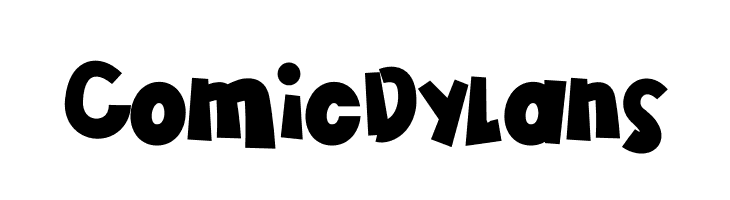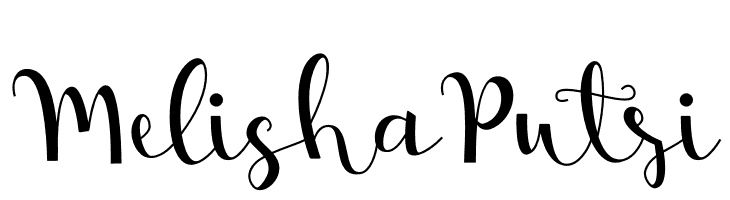
A dynamic and energetic script font with fluid, cursive letterforms.
An elegant serif font with an italic slant and moderate contrast.
A bold, angular font with a semi-italic slant and a modern, dynamic style.
A bold, decorative serif font with exaggerated serifs and a playful style.
A modern, elegant script font with flowing, cursive characters and intricate details.
A playful, italic font with whimsical, cursive-like strokes and creative flourishes.
An elegant, cursive font with dynamic strokes and artistic flourishes.
A lively and elegant script font with flowing, interconnected letterforms and ornate flourishes.
A playful, handwritten font with tall, narrow letters and a casual style.
A bold, playful, and hand-drawn style font with rounded edges.